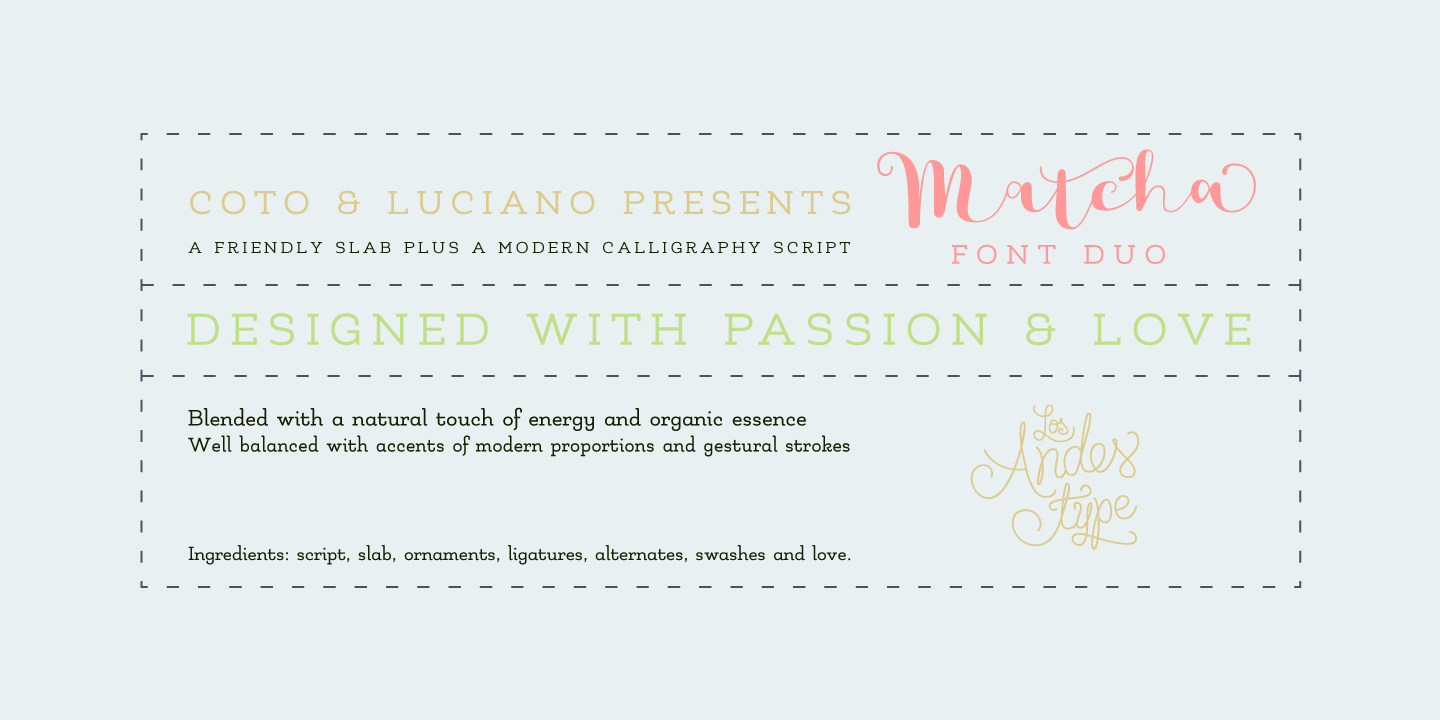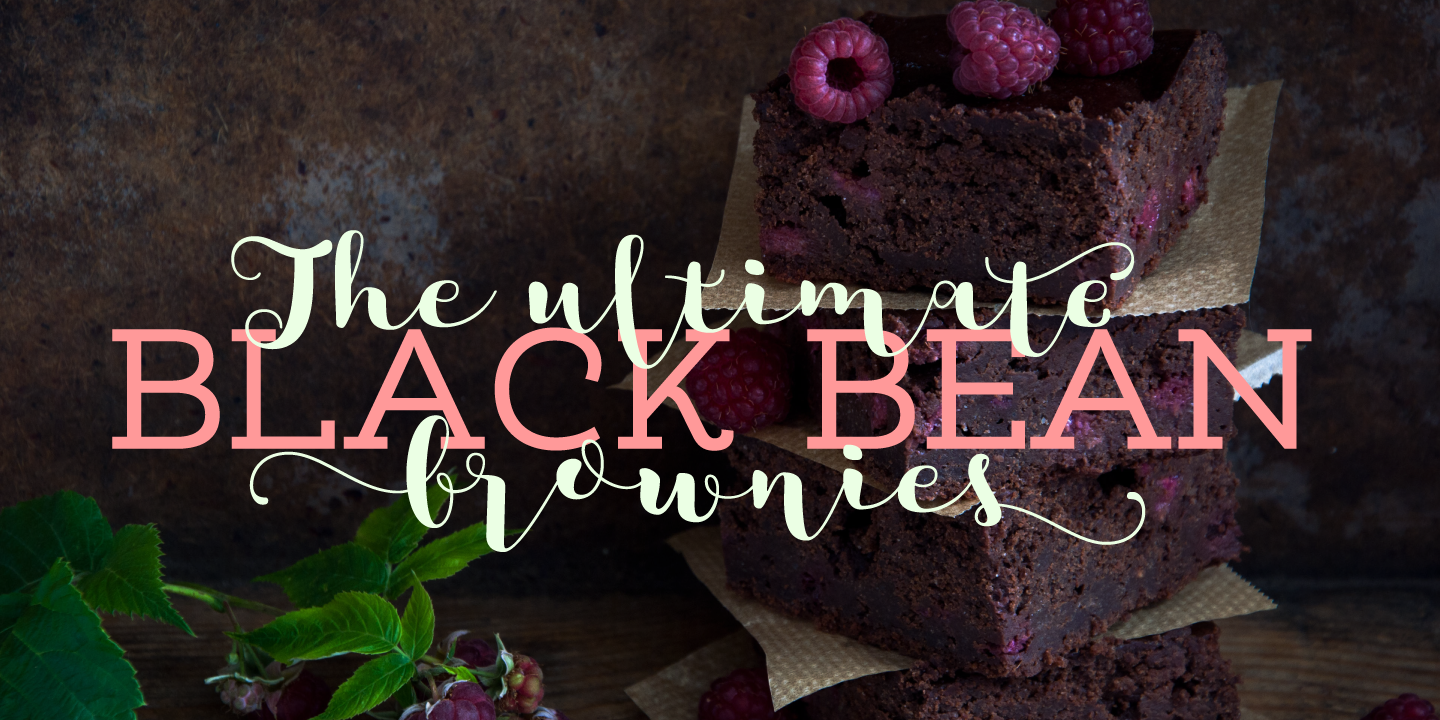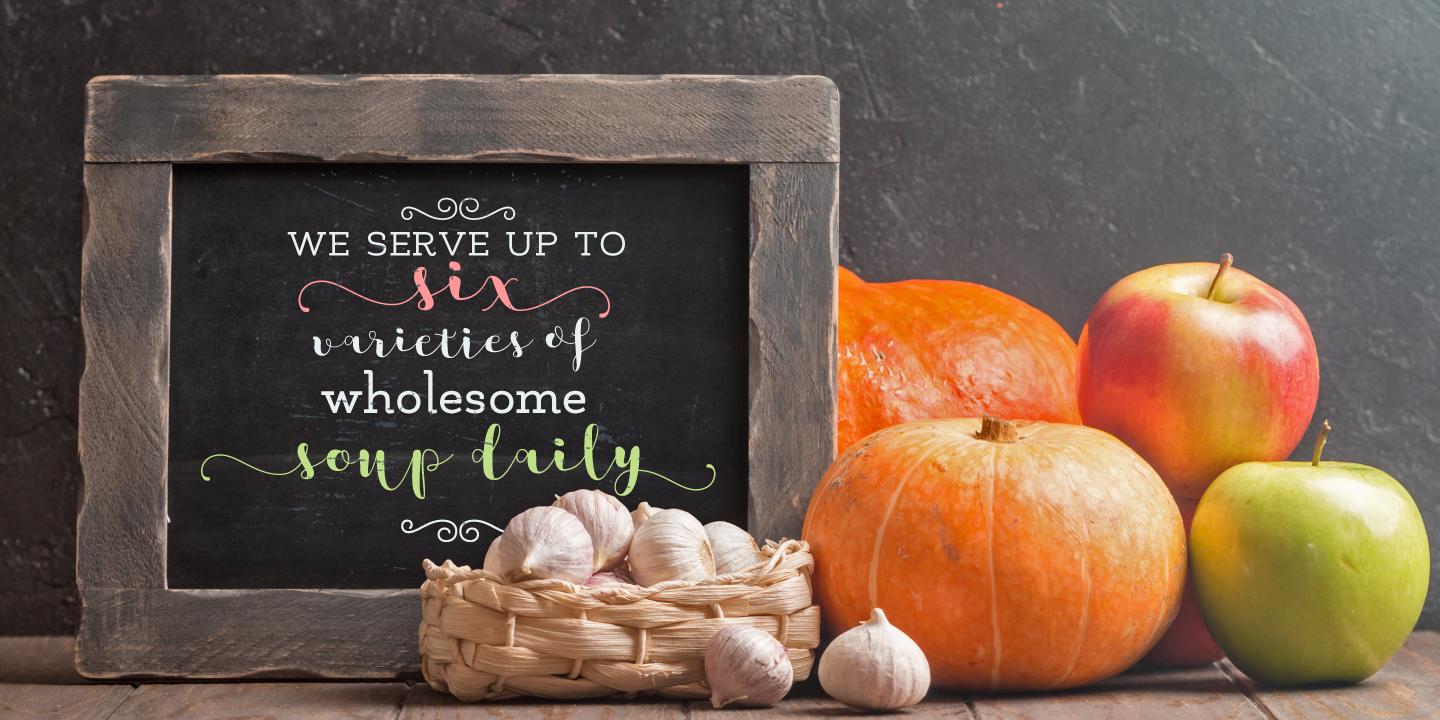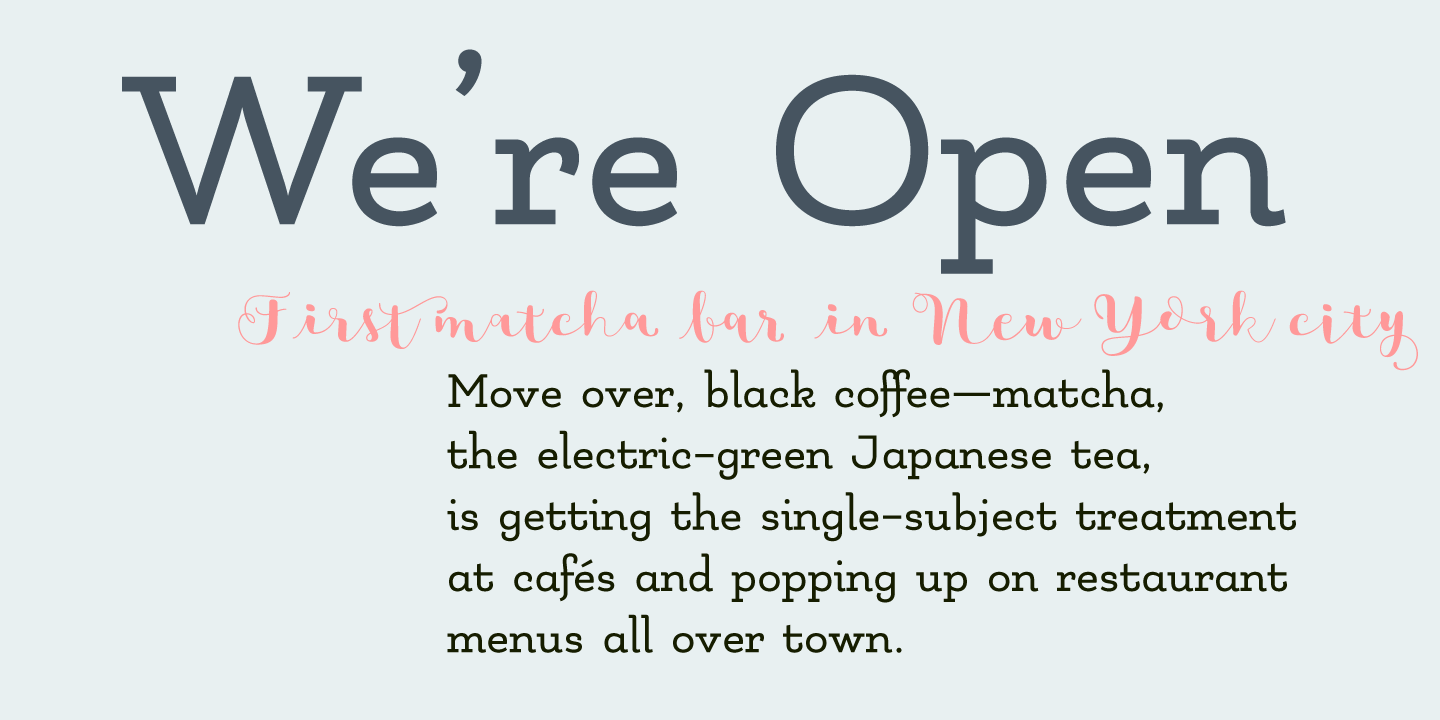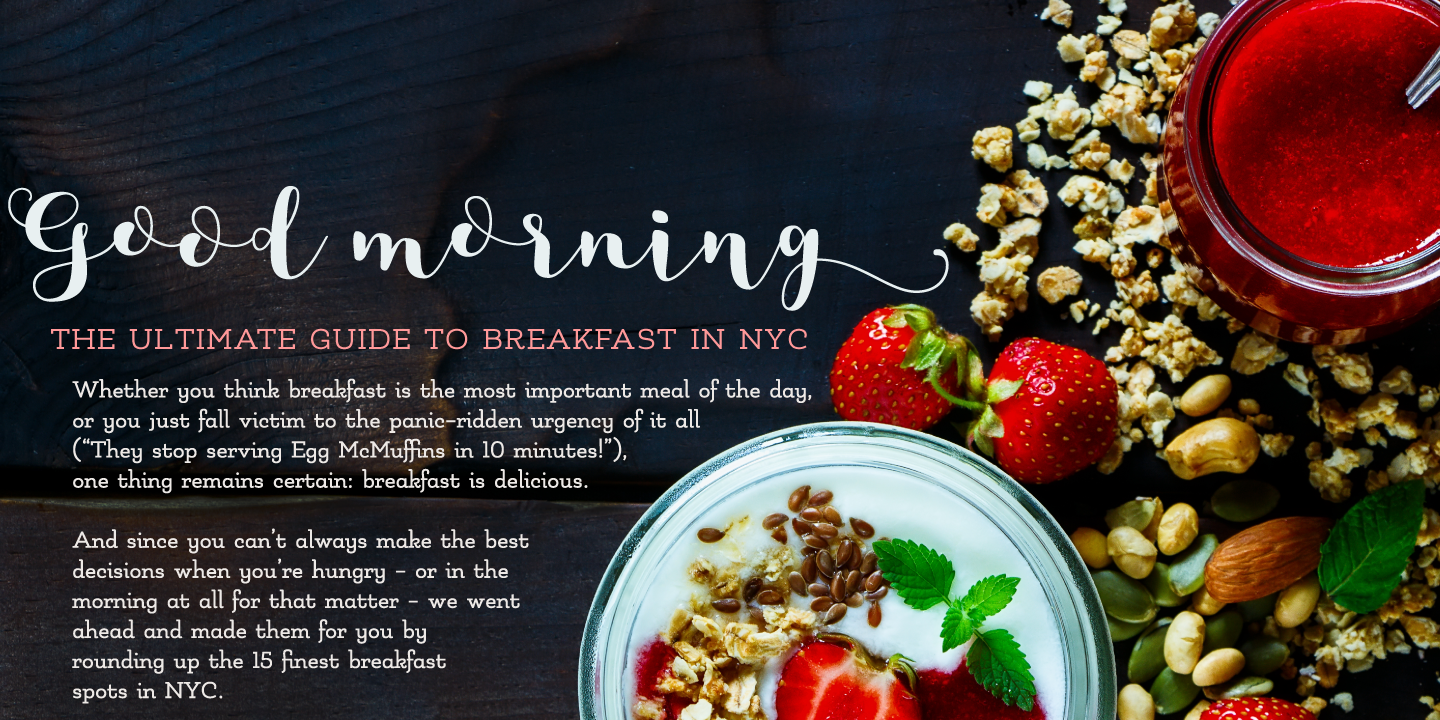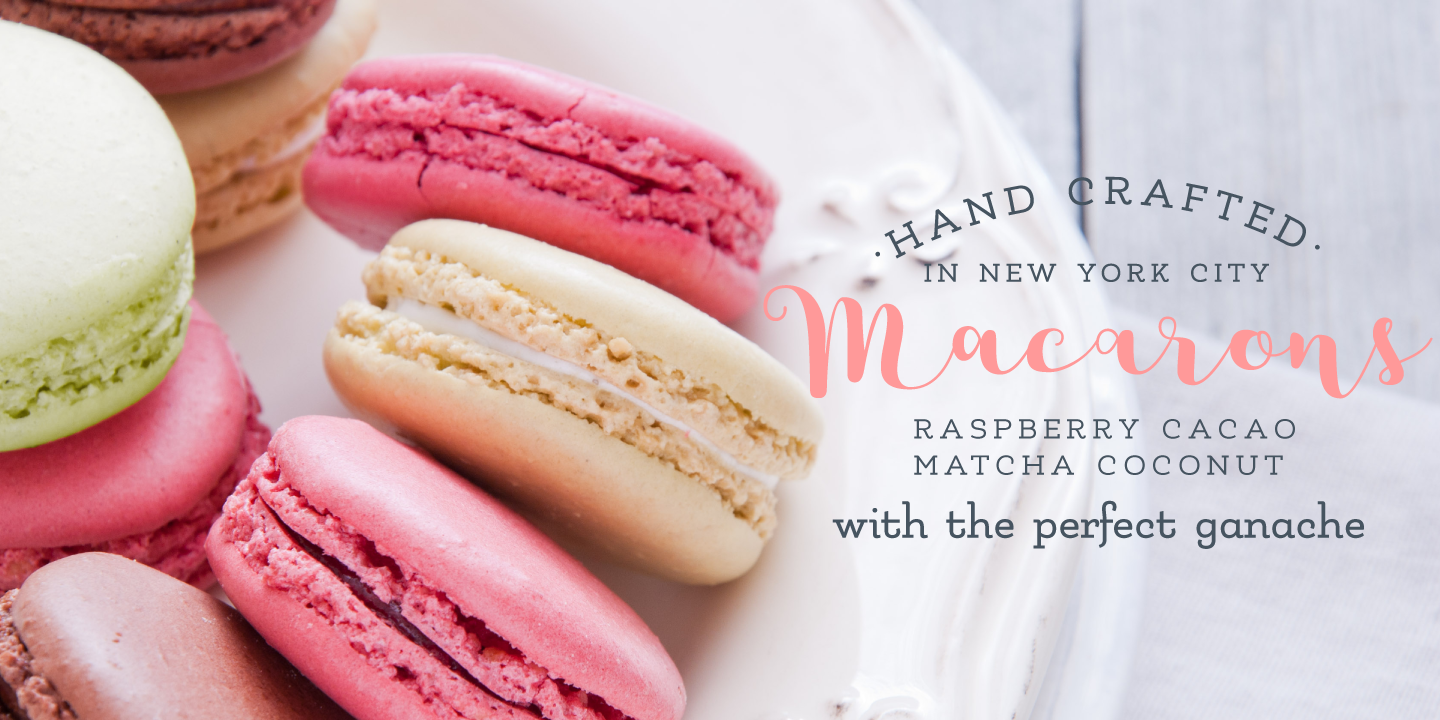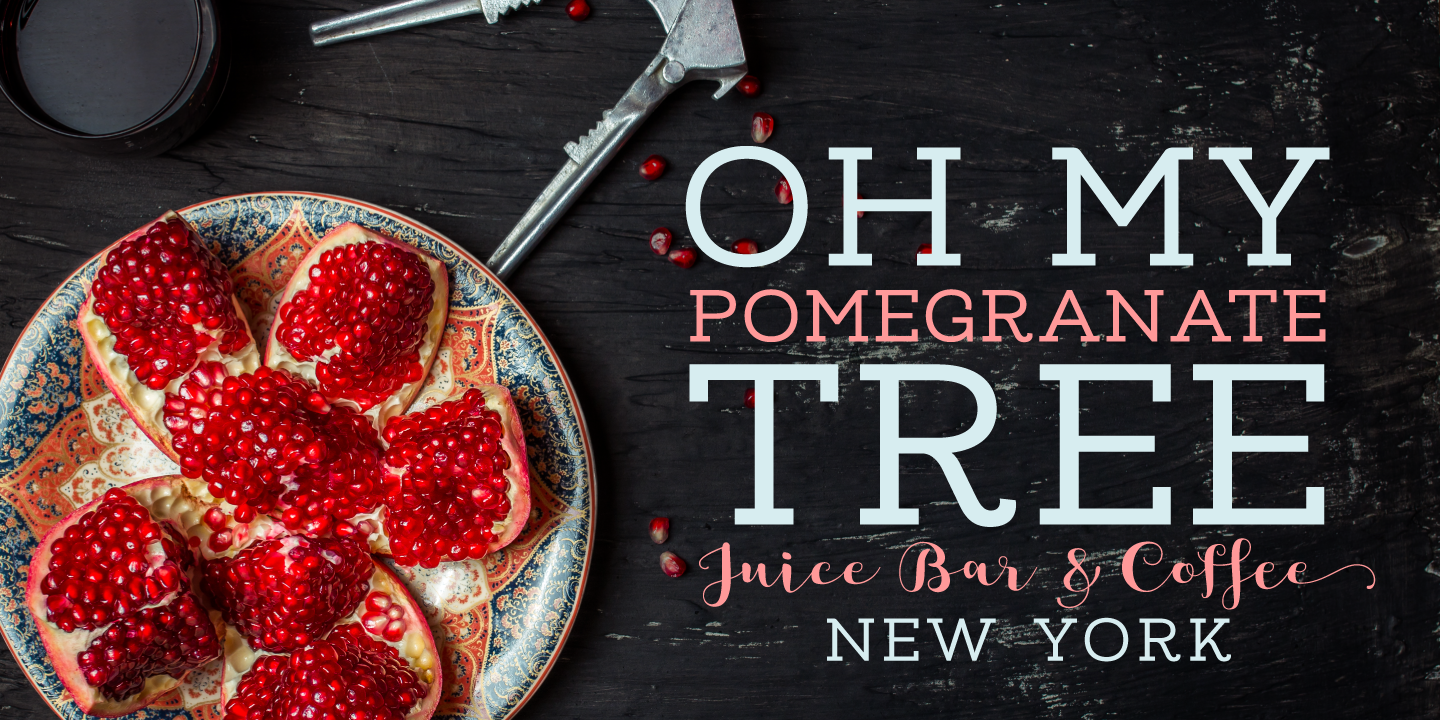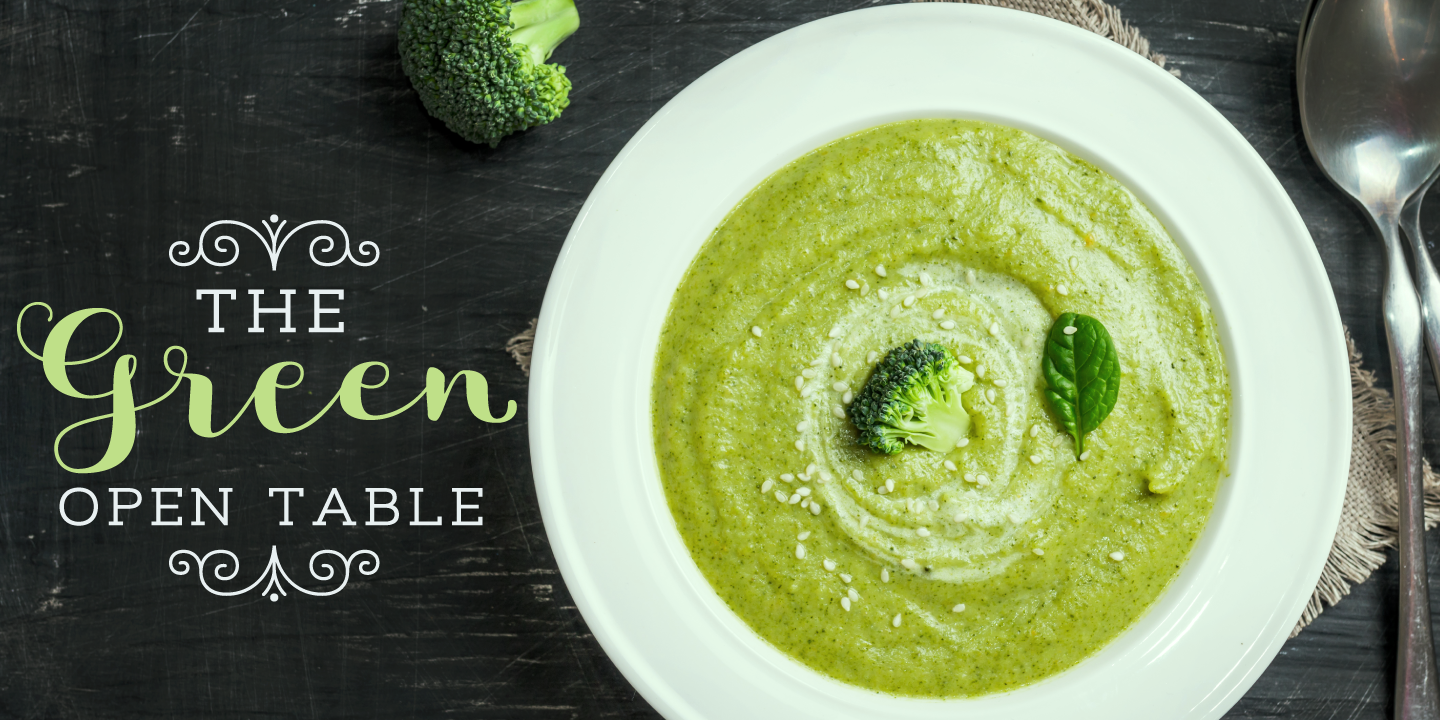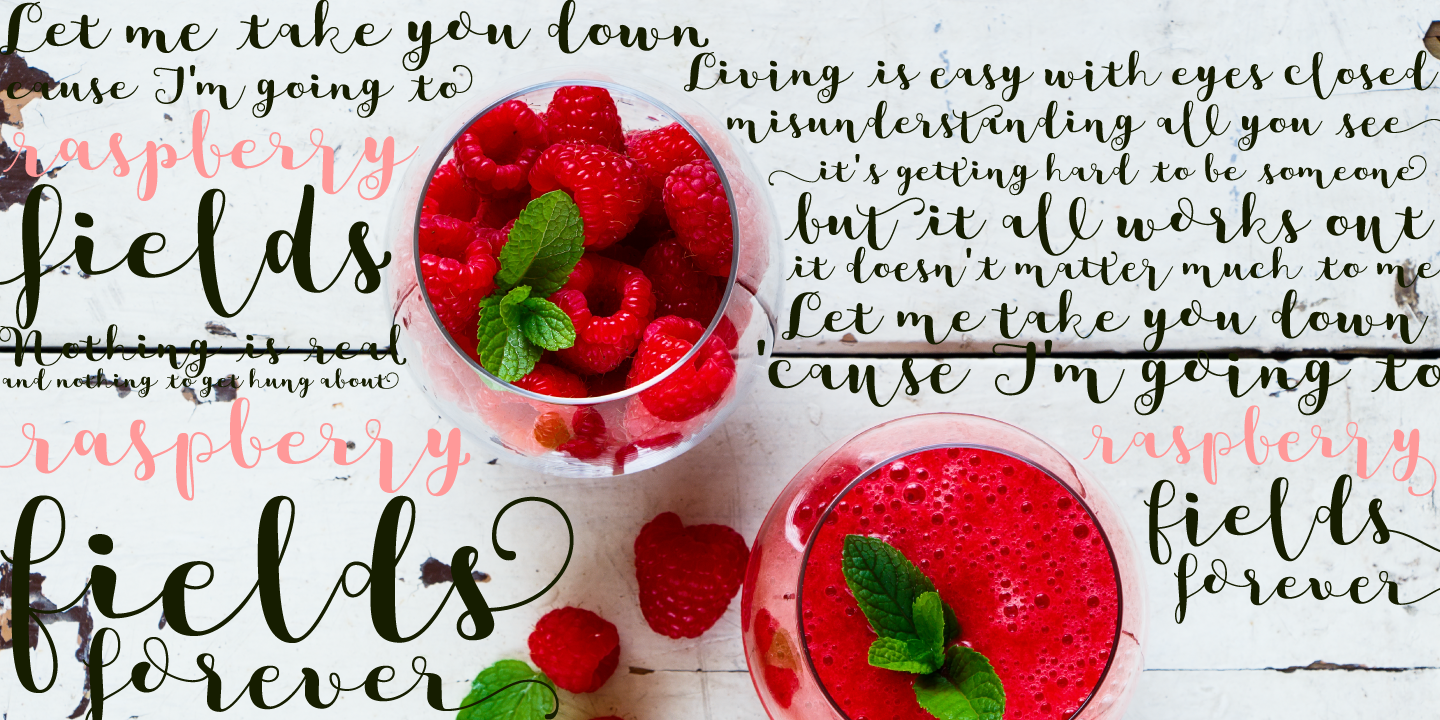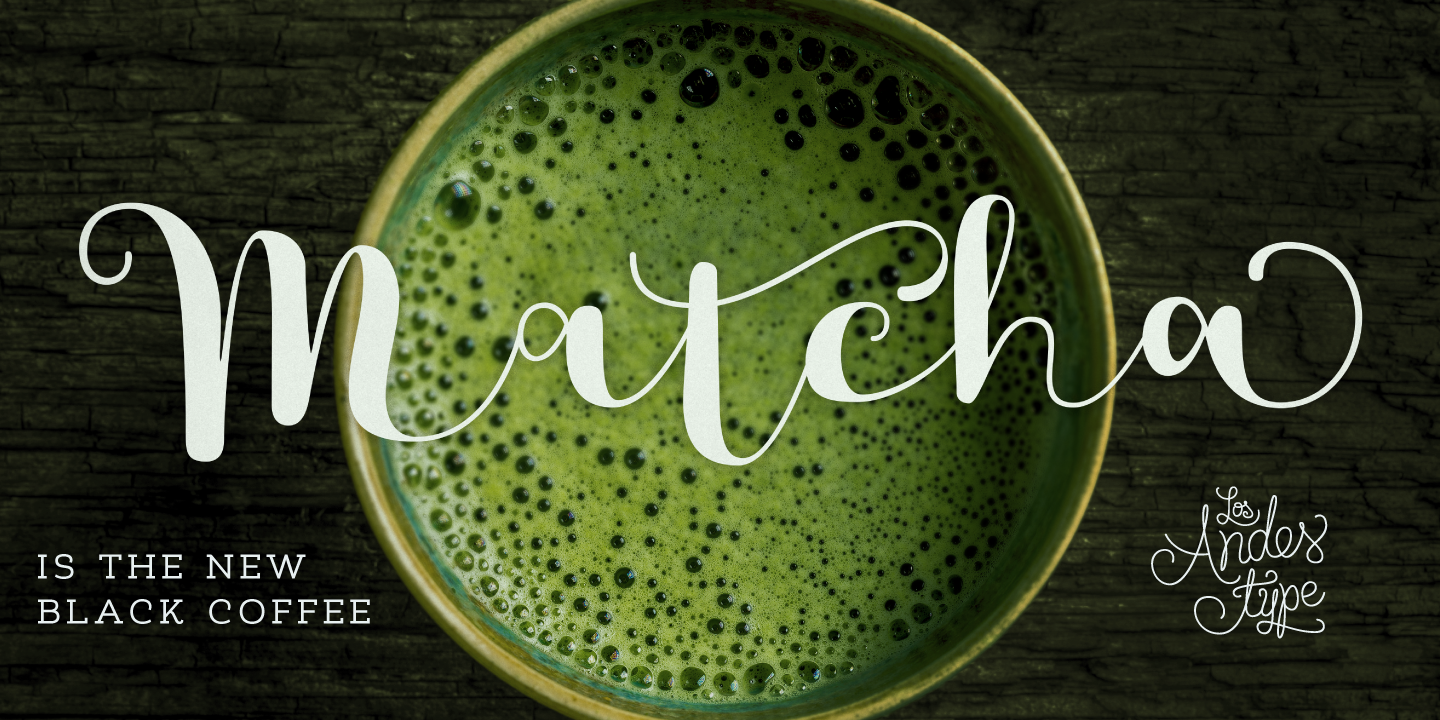
We decided to explore the concept of fitness, but from a more natural perspective. With so many people drinking detox drinks and eating raw food, we were inspired to create a font that mixes the ‘strength’ of sports and the organic nature of natural products. The result is ‘Matcha’: a strong and energetic typeface that also flows at the same time.
Matcha consists of a stable, very friendly Slab face and a calligraphy Script with a handmade style: spontaneous and fickle with some reverse-contrast alternative characters. Can you guess who is the designer behind each style?
The duo contains OpenType features and is perfect for labeling natural products, cookbooks, magazine photography, fashion & beauty magazines covers, health & fitness publications, and more. For both print and digital communication.
Ligatures, Alternates, Contextual Alternates, Swash